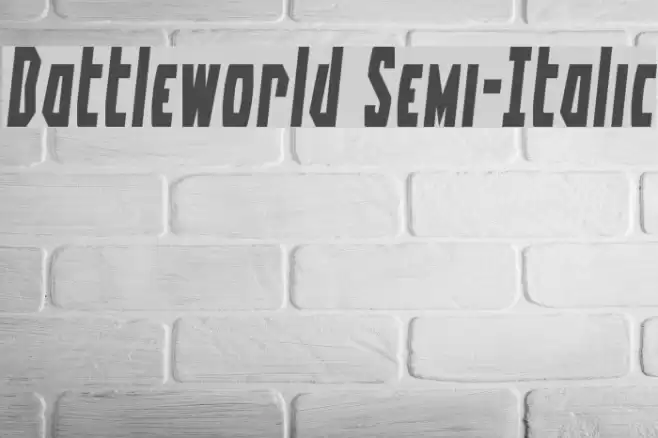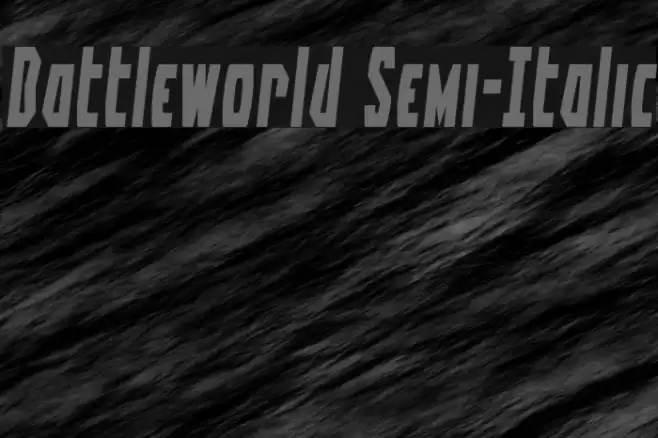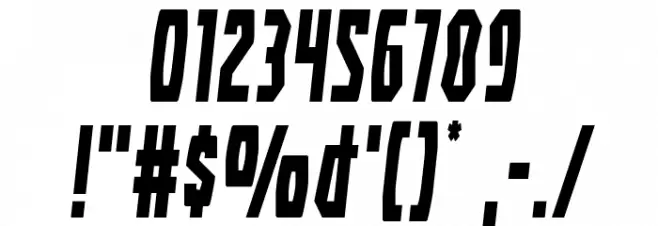
Battleworld Semi-Italic Font
Battleworld Semi-Italic Description
This font features a bold and dynamic design with a semi-italic slant, giving it a sense of motion and energy. The characters are angular and geometric, with sharp edges and a slightly condensed form. The uppercase letters are particularly striking, with a strong presence that commands attention. The lowercase letters maintain the same angular style, ensuring consistency throughout the typeface. Numbers and special characters are designed to match the bold and assertive look of the alphabet, making this font versatile for various uses. The overall style is modern and impactful, suitable for projects that require a strong visual statement.
A bold, semi-italic font with angular, geometric characters from Sci-fi fonts.